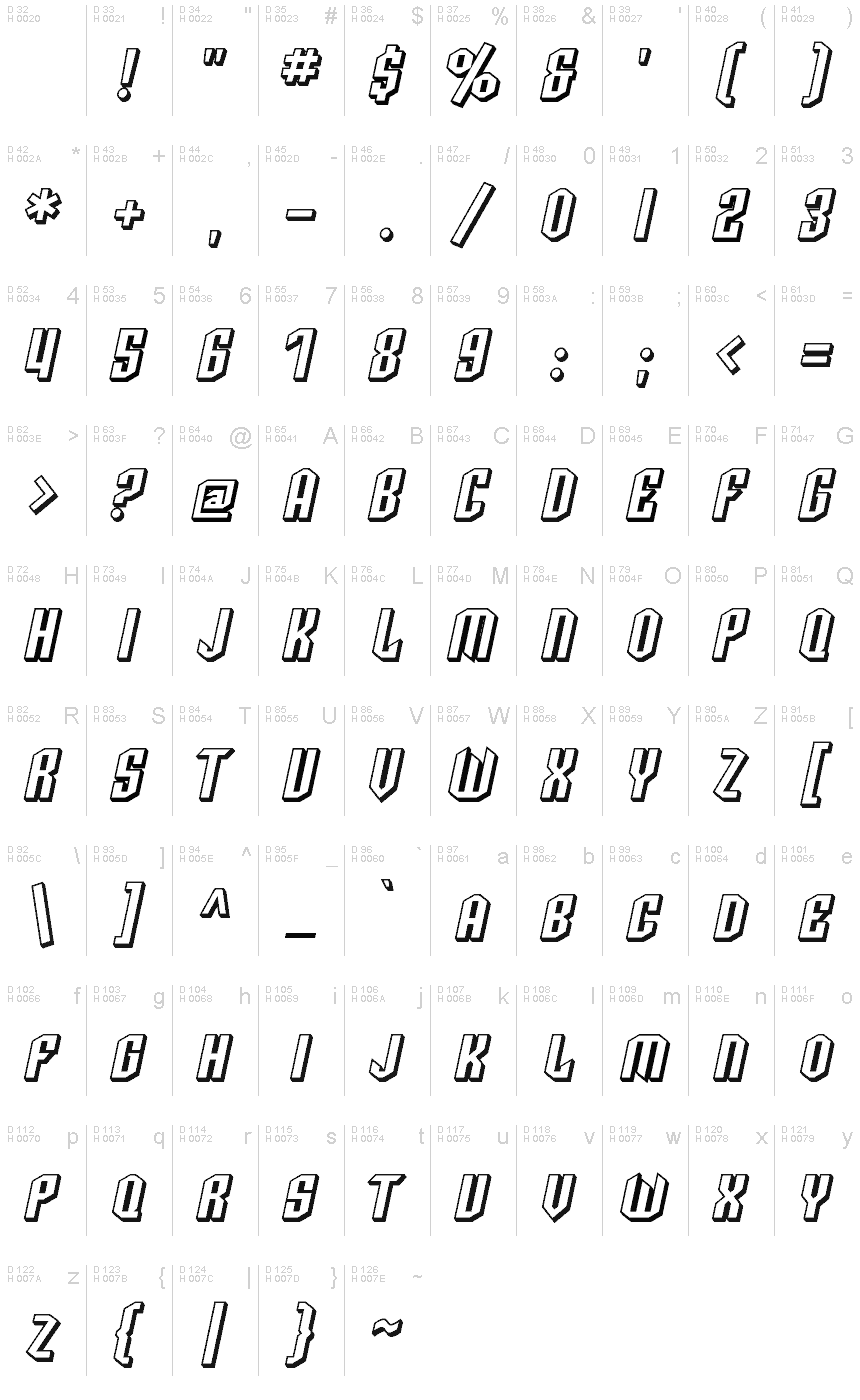
SF Archery Black SC Shaded Oblique
SF Archery Black SC Shaded Oblique is a standout typeface from the SF Archery Black family, meticulously crafted by ShyFonts Type Foundry. This gothic-inspired font boasts a modern twist that exudes both boldness and sophistication. Its semi-bold weight is perfectly balanced by the playful obliqueness and shaded detailing, creating a dynamic visual texture that's both eye-catching and legible.
The contemporary edge of SF Archery Black SC Shaded Oblique makes it an excellent choice for various creative projects. Whether it's branding, poster designs, or digital art, this font infuses each creation with a distinctive personality that commands attention without overwhelming the senses.
Embrace the unique aesthetic appeal of this modern gothic masterpiece to elevate your design work with style and character.